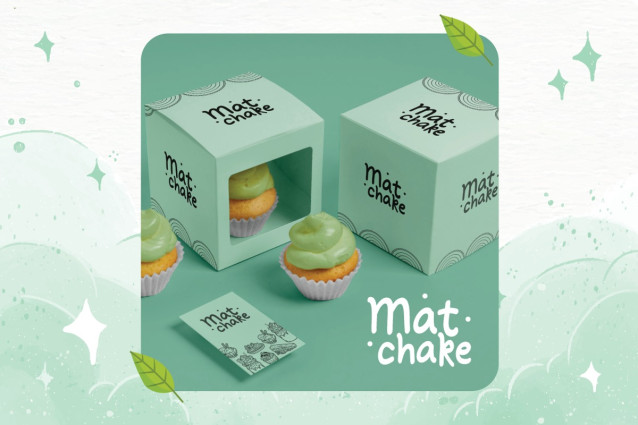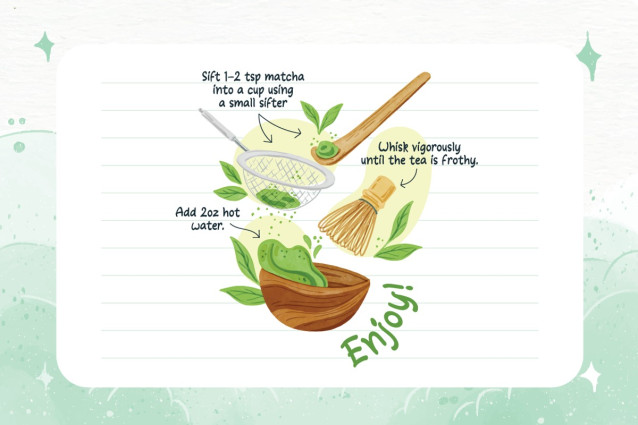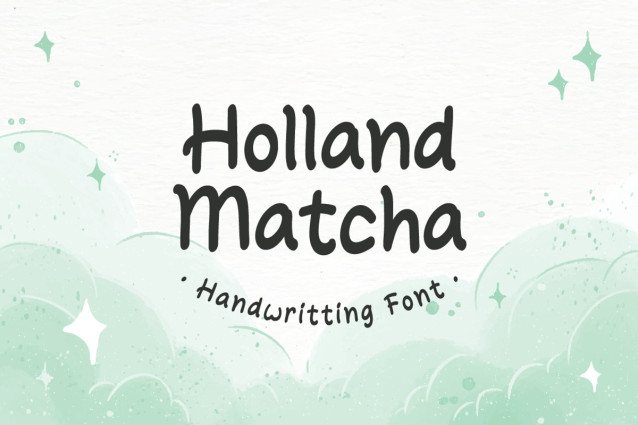
Holland Matcha Font
Holland Matcha Font – the handwritten font that adds a touch of organic elegance and warmth to your food and beverage brand. Elevate your identity with this unique, memorable typeface and make your culinary creations truly stand out. Explore “Holland Matcha” today for an unforgettable brand transformation.